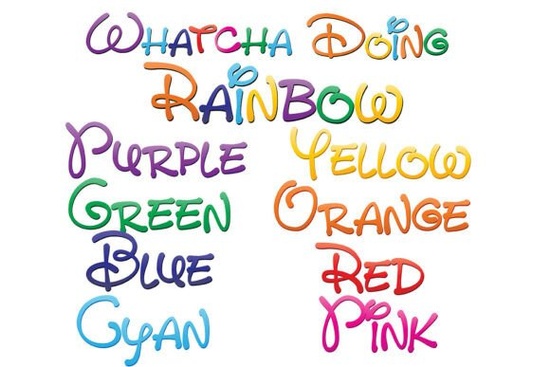
If you've been looking for a Whatcha Doing Font that brings actual color to your text not just flat black outlines this Creative Fabrica bundle is worth a close look. It includes nine full-color SVG fonts, each with a whimsical, hand-drawn print style filled with rainbow gradients. An eighth font rounds out the set by blending all eight colors into one, giving you a lot of creative range from a single download.
What Exactly Is a Full-Color SVG Font?
Since SVG fonts are vector-based, they scale to any size without losing quality whether you're designing a small greeting card tag or a large poster.
Who Is This Font Bundle For?
This set works well for a range of creative projects. If you fall into any of these categories, you'll likely find it useful:
- Print-on-demand sellers who want eye-catching text on t-shirts, mugs, and stickers
- Small business owners creating social media graphics, logos, or packaging
- Crafters and hobbyists making cards, invitations, scrapbook pages, or party decorations
- Graphic designers looking for a playful, hand-drawn font with built-in color
The hand-written style gives projects a personal, approachable feel. And because the color is embedded in the font itself, you don't need to manually add gradient fills or layer effects the rainbow effect is already there when you type.
How Is This Different From a Regular Handwritten Font?
A standard colorful handwritten font usually comes in a single color that you adjust in your design software. You'd have to apply gradients or clipping masks to get a multi-color look, which takes extra time and skill.
With these color fonts, the gradient work is done for you. Each of the eight individual fonts features a different dominant color progression, while the ninth font combines the entire spectrum. You just type, and the color appears. That's a real time-saver for anyone producing designs in volume.
What Can You Actually Make With These Fonts?
Here are a few practical ideas that work well with a rainbow gradient font:
- T-shirt designs playful quotes or phrases that pop on both light and dark blanks
- Greeting cards and invitations birthday cards, Pride-themed designs, or cheerful thank-you notes
- Social media graphics bold headlines for Instagram posts, stories, or YouTube thumbnails
- Stickers and labels fun text for planner stickers, kids' products, or packaging
- Wall art and prints motivational quotes scaled to poster size without losing crispness
- Logo concepts especially for brands targeting a young, creative, or playful audience
Are There Any Limitations I Should Know About?
A few honest notes before you buy:
- Not ideal for long paragraphs. Gradient-filled text works best for headlines, short phrases, and display use not body copy.
- Color output on print may vary. Always do a test print, especially on different paper types or fabric transfers, to make sure the gradients reproduce the way you expect.